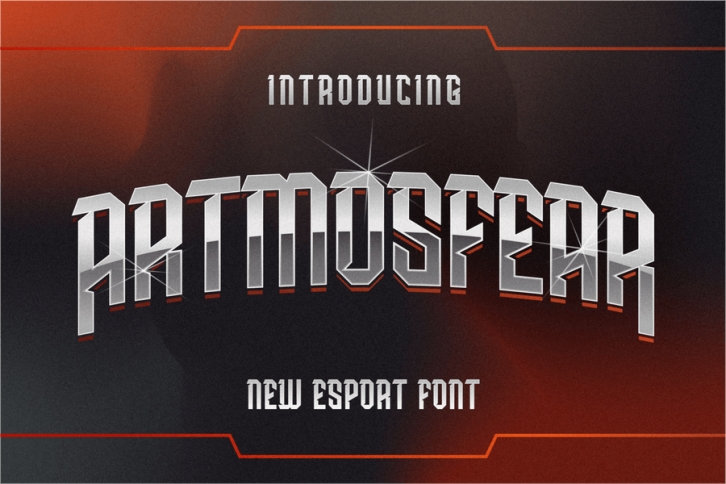
ARTMOSFEAR GAMING DISPLAY FONT
ARTMOSFEAR is a font created with a modern and sophisticated touch. ARTMOSFEAR is perfect for logo design, gaming / esport, sports, apparel, promo and large headline uses.